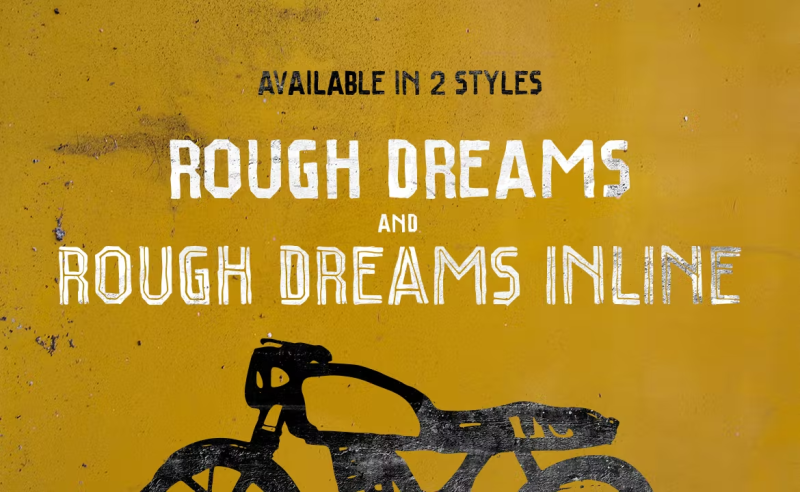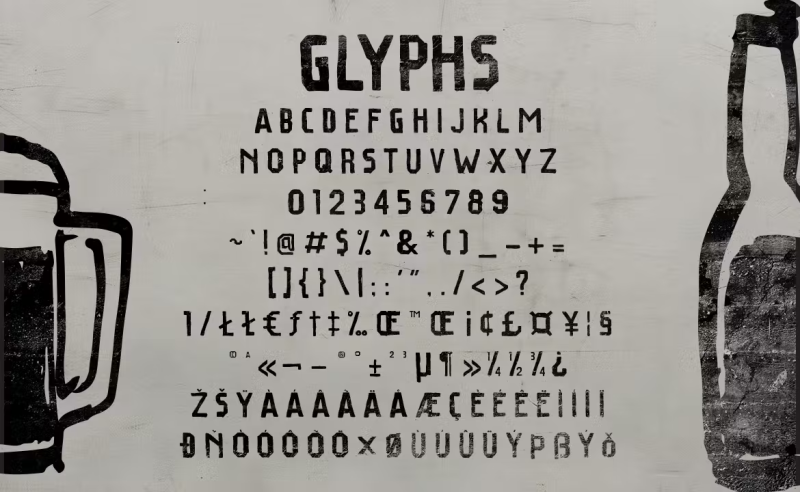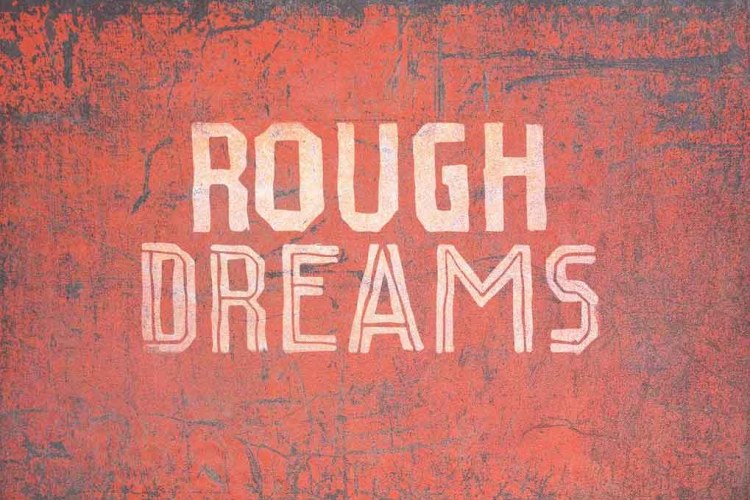
Rough Dreams Font
Rough Dreams is a handpainted font that inspired by the wall painting typeface. It comes with two style : rough dreams and rough dreams inline. Suitable for headline, poster design, cd cover album or something that need handcrafted style.
Rough Dreams support multilanguage
Where Rough Dreams Font works best
What is Rough Dreams Font good for?